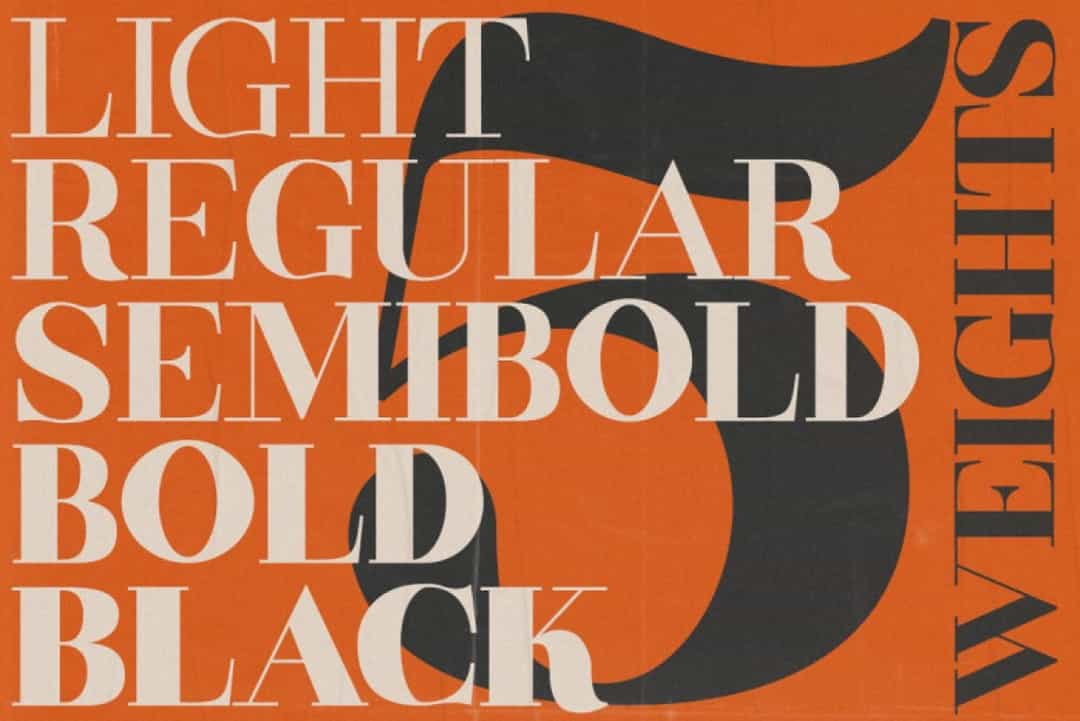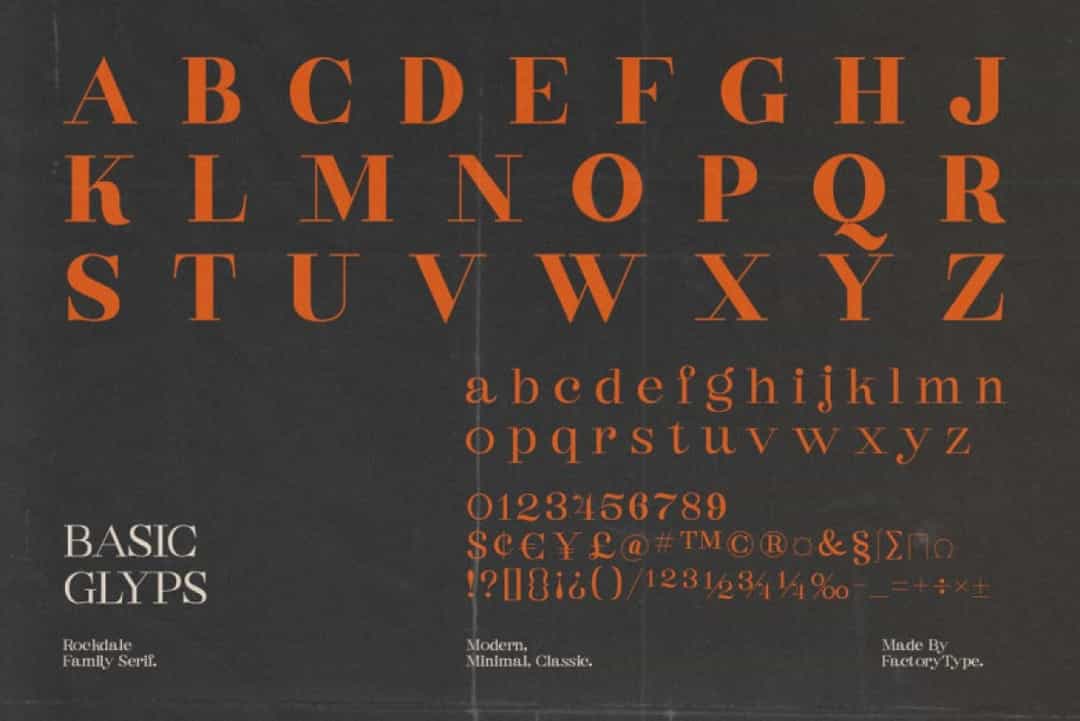
Rockdale is an impressive and elegant serif font made for branding or logo designs, and draws your eye by its graceful curves while remaining modern and stylish. Available weights give an array of choices when selecting the ideal typographic hue; while stylistic options like Ligature and Alternate fonts provide endless potential uses.